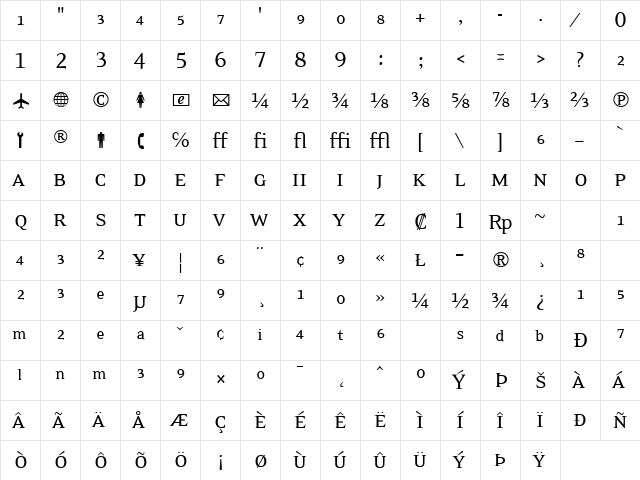
EideticNeoFractions Regular
| Foundry | Emigre Inc. |
| Designer | Rodrigo Cavazos |
Design Context for EideticNeoFractions Typeface
EideticNeoFractions is a composed and adaptable typeface that performs quietly and consistently across a wide range of design contexts.